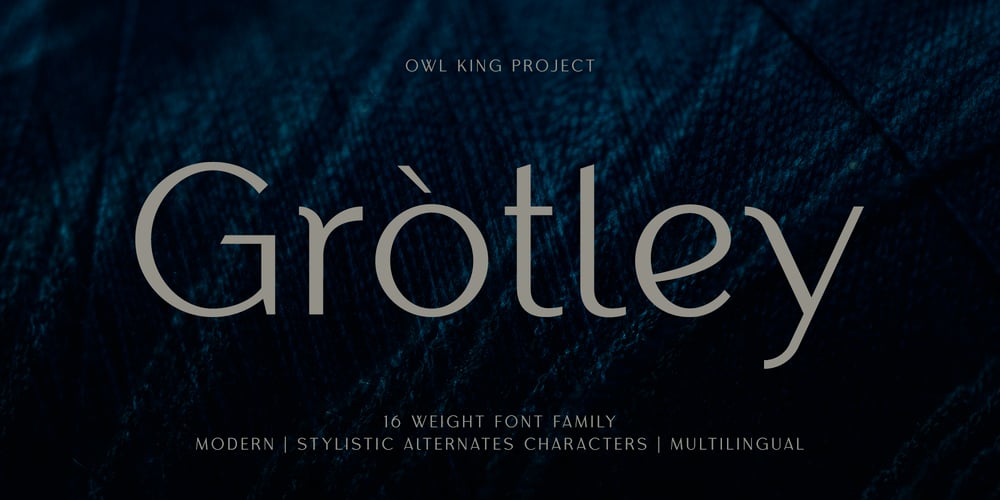
Grotley Font Family was designed by Darhilen and published by Owl king project. Grotley contains 16 styles and family package options. Grotley is designed with a sweet shape, supported by several weights, making the equipment very supportive for all design needs or projects that look premium. let’s start designing.Be happy